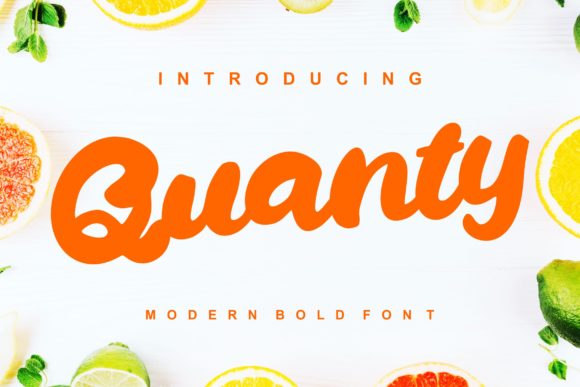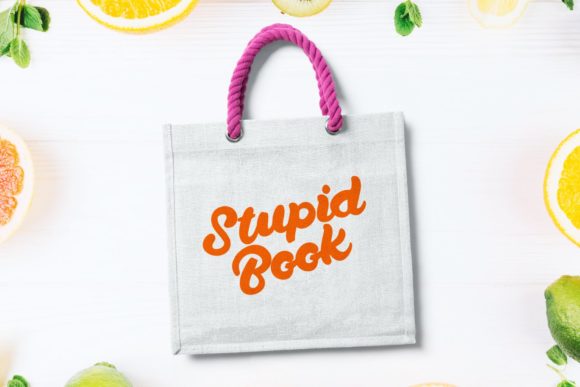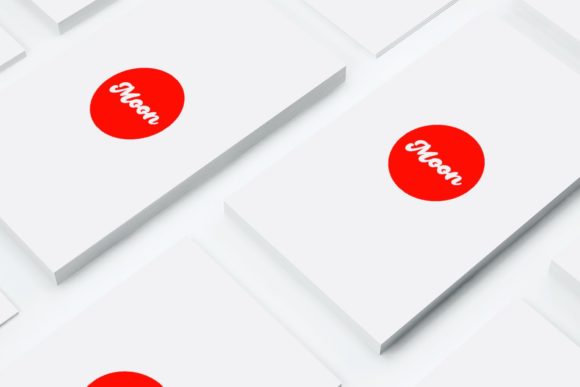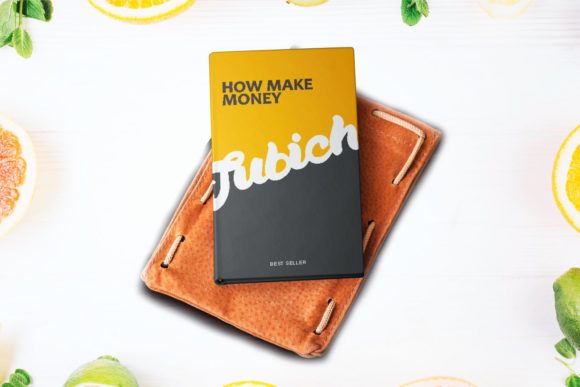
HomeScript FontsQuanty Font Script Fonts Quanty Font FacebookXPinterestWhatsApp Quanty Font Poster 2 Quanty Font Poster 3 Quanty Font Poster 4 Quanty Font Poster 5 Quanty Font Poster 6 About Quanty Font Quanty is a bold script font with vintage appeal. Fall in love with its charming & friendly appearance! DOWNLOAD ON CREATIVE FABRICAThis font is sold and delivered by Creative Fabrica. Font Canyon may earn a commission if you buy through this link. People also explored Beautiful Script Font Bellaif Font Apelow Font Swirly Letters Font Tazke Font Abcd Cursive Regular Font Congrats Font Anthelo Font Great Head 339 0 TagsQuanty Font Previous articleAilre Heleris FontNext articleBramesta Font LEAVE A REPLY Cancel reply Comment: Please enter your comment! Name:* Please enter your name here Email:* You have entered an incorrect email address! Please enter your email address here Website: Save my name, email, and website in this browser for the next time I comment. Personal Use Free Mold Papa Personal Use Free Read more about this font BD RatterBit Personal Use Free Read more about this font Archeology Personal Use Free Read more about this font Autines Personal Use Free Read more about this font BLOG Exploring Font Trends Shaping Communication in the Digital Era Fonts, like all design elements, are subject to trends. They play a crucial role in communicating a brand's personality,... Top 10 Handwritten Fonts That Elevate Your Designs Transform Your Website: Elevate Your Typography with 7 Best Web Font Generators The 10 Best Handwriting Fonts to Add Personality to Your Designs